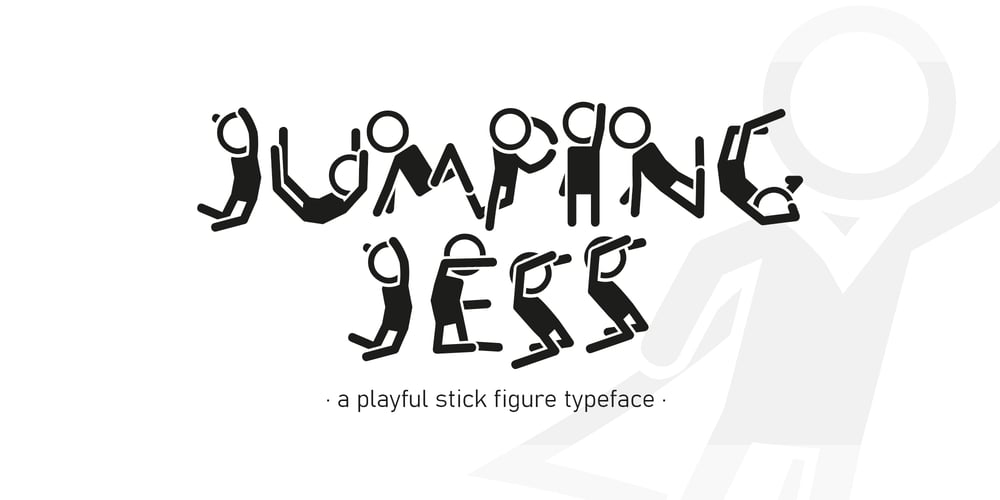
Jumping Jess Font Family was designed by Varian Qua and published by The Mafia Rabbit Foundry. Jumping Jess contains 1 styles and family package options. Jumping Jess is a high quality decorative typeface making use of Stick Figures in various playful jumping poses to depict the letters A-Z. Numbers, symbols and punctuation are composed of elements from the Stick Figure design to visually complement the letters of the alphabet.With a comprehensive set of Ligatures and hundreds of Hand-kerned pairs, Jumping Jess was developed to look great with any string of letters.This font is suitable for greeting cards, sports posters, logos, signage, menus, wedding invitations, product packaging, craft, children’s writing, t-shirts, quotes, social media page covers, large format event banners, book covers, magazine title pages and so much more.We highly recommend using an application that supports Open Type features. Ligatures will better display double consonants like “TT” and “LL” and other character combinations like “SH” and “ZY”. Ligatures are enabled by default on some applications like Notepad and Photoshop but disabled by default on others like Word and Paintshop.FEATURES Uppercase alphabet 50+ Ligatures, 400+ Kerning Pairs Full range of numbers, symbols & punctuation Comprehensive language support* * ISO-8859-1, ISO/IEC 8859-15, Windows-1252 (e.g. French, German, Polish, Spanish, Italian, Portuguese, Finnish, Norwegian, Swedish, …)